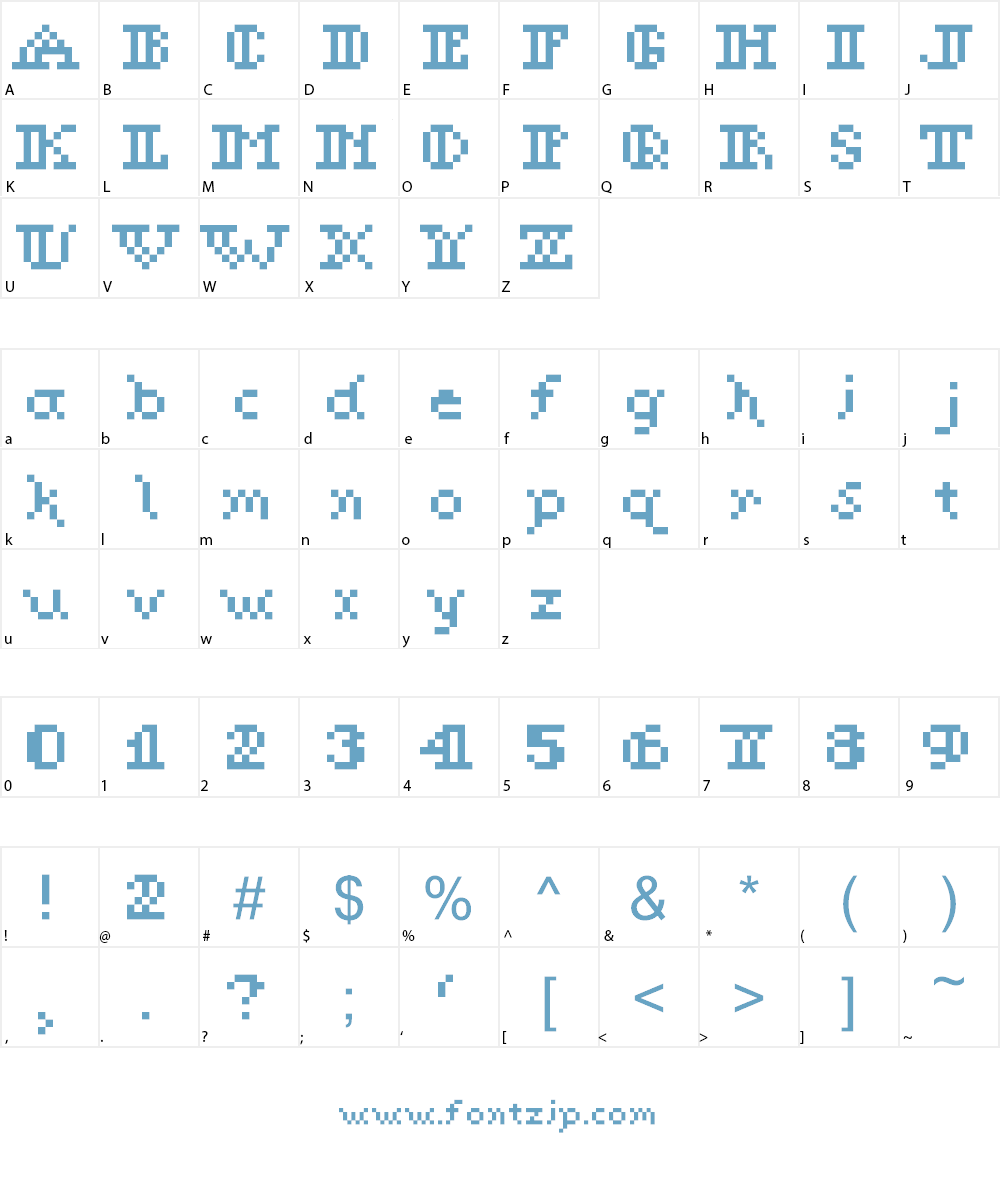
I have tweaked my Gothic Pixel Font, making it smaller so it can be used in even smaller spaces. It is best used at 8 pixel...and it can be tricky. An extra letter or punctuation might be needed to make the letters crisp, which you can later go in and erase. That is probably extra work, but worth it if you are desperate for this type of tiny font.